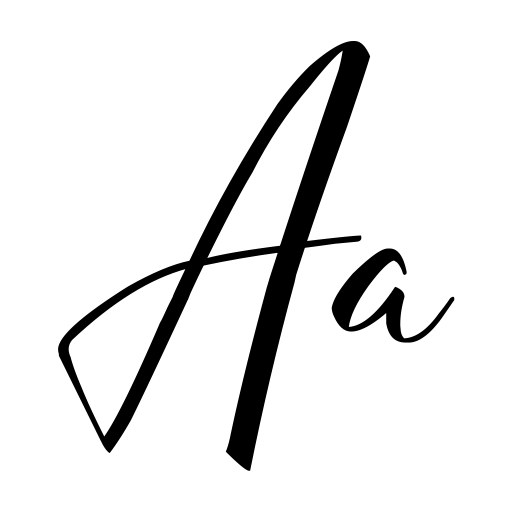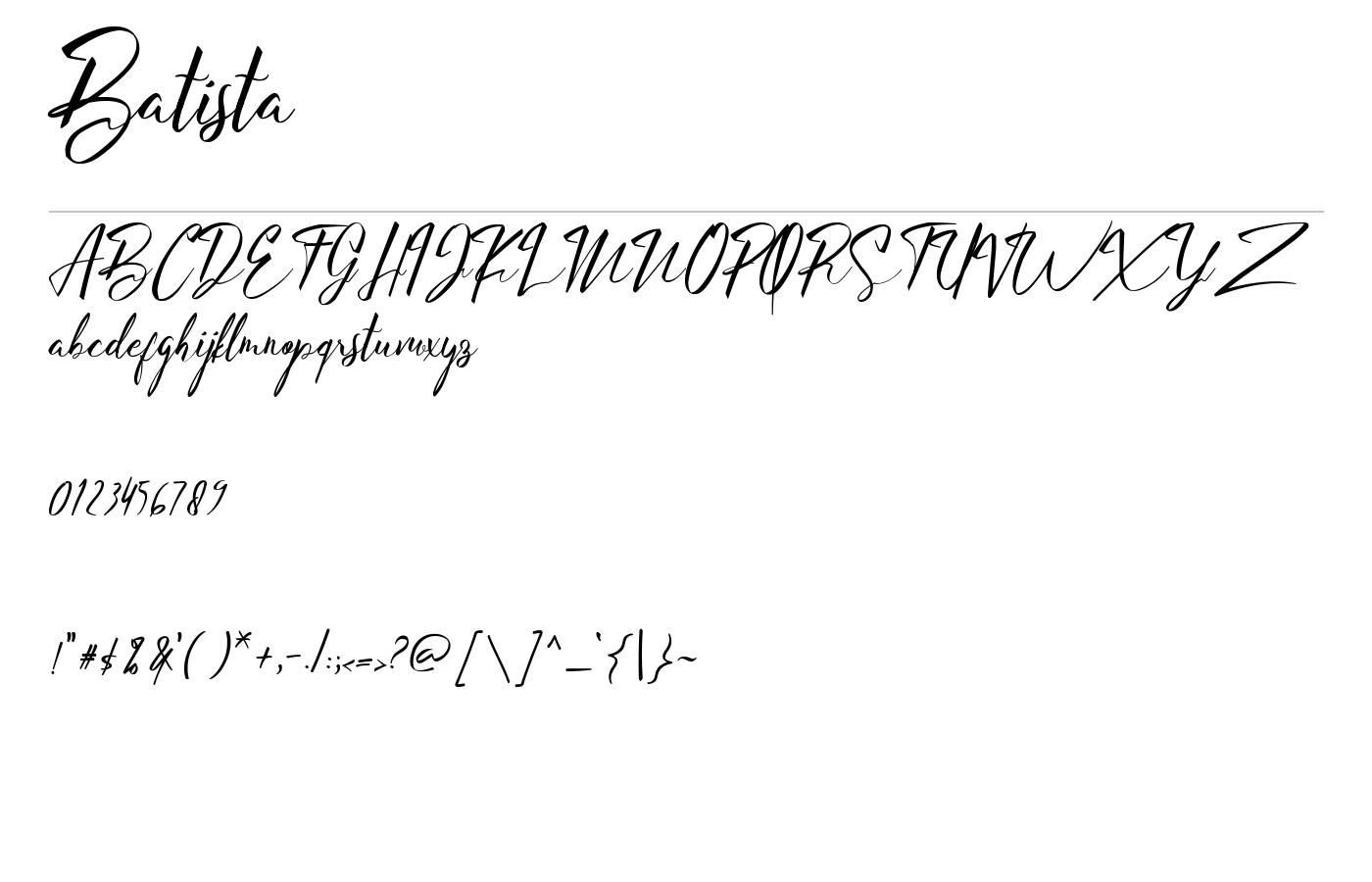
Batista is an elegant script font with a delicate, handwritten style that combines fluid, sweeping strokes with refined, slender letterforms. Its light weight and high contrast between thick and thin lines give it a sophisticated and graceful personality, perfect for luxury branding, invitations, and any design needing a personal yet classy touch. This font shines in logos, packaging, and editorial headlines where a stylish, refined flair is desired.
Batista Font
About Batista Font